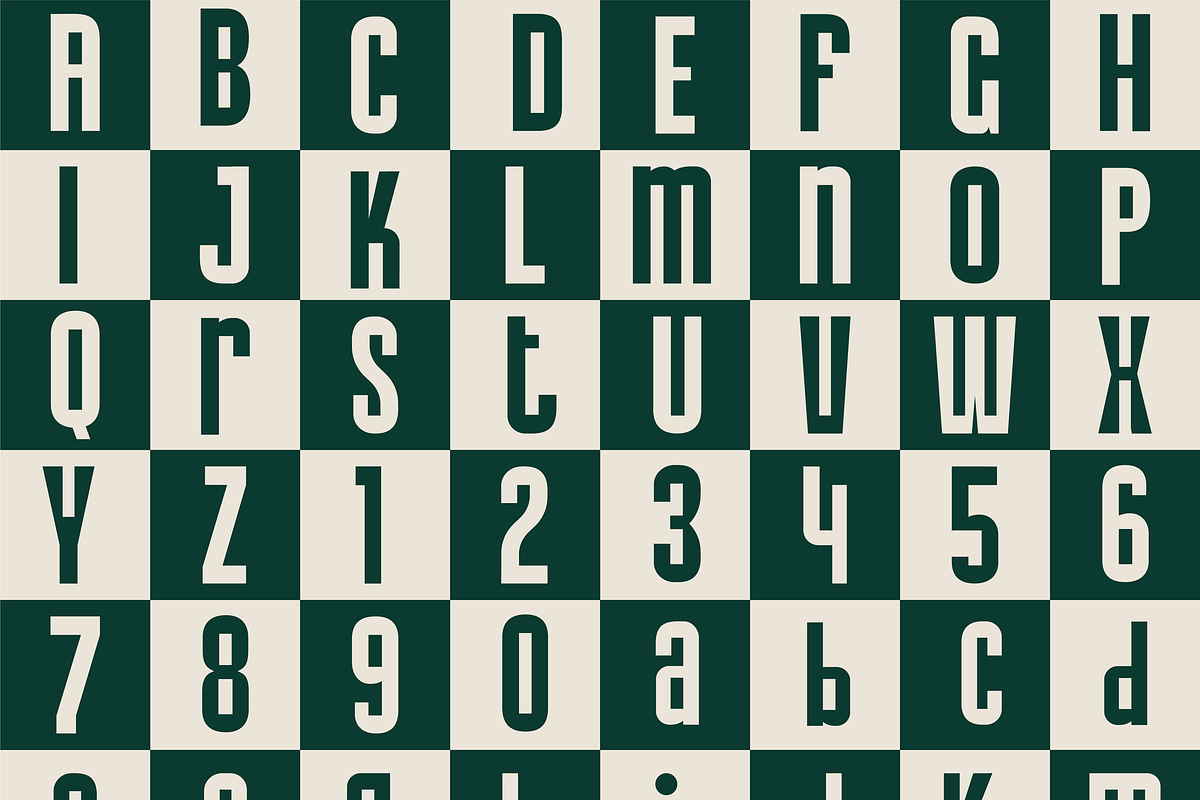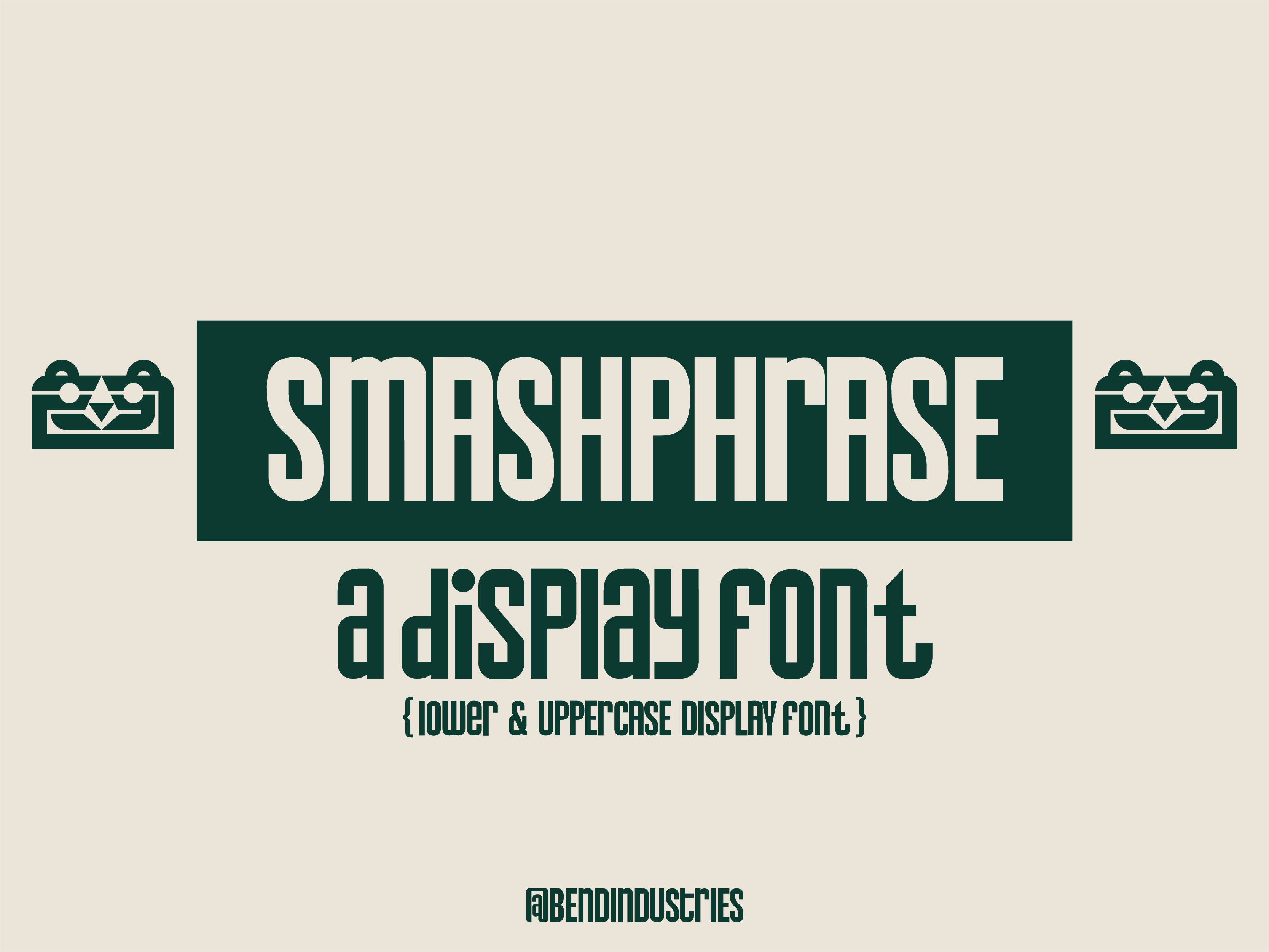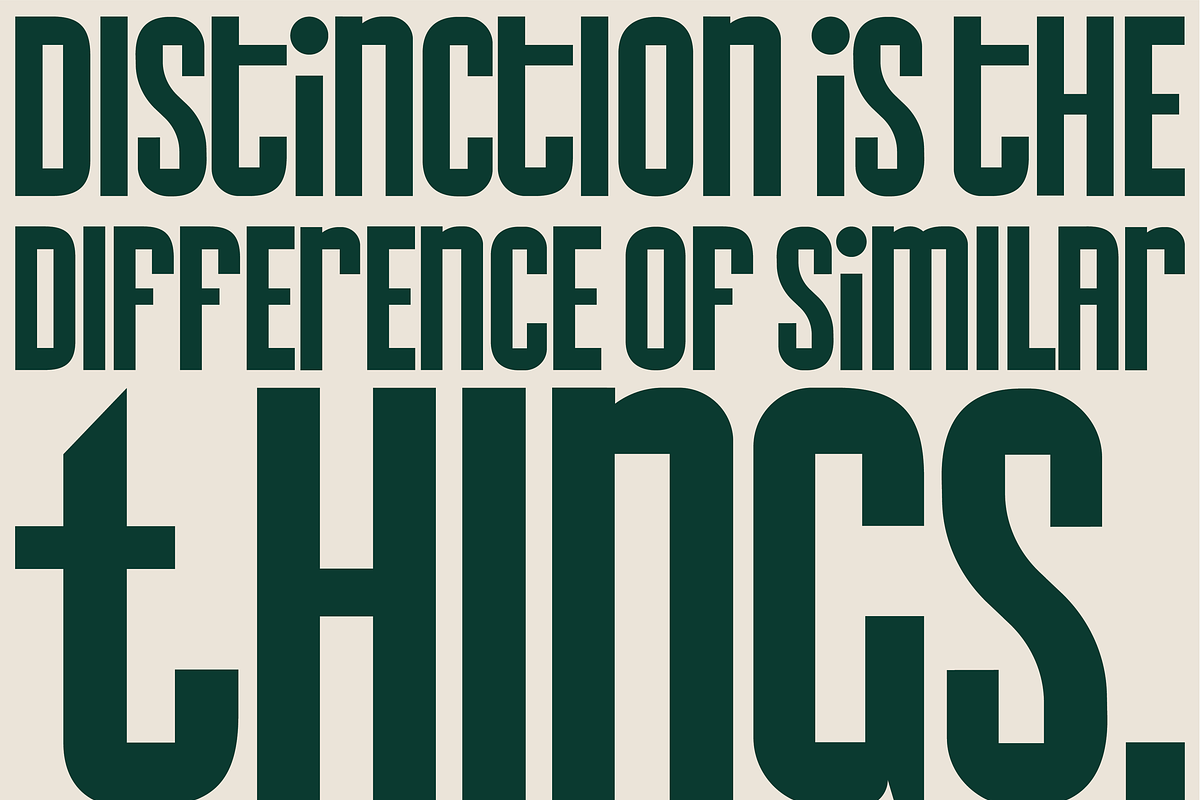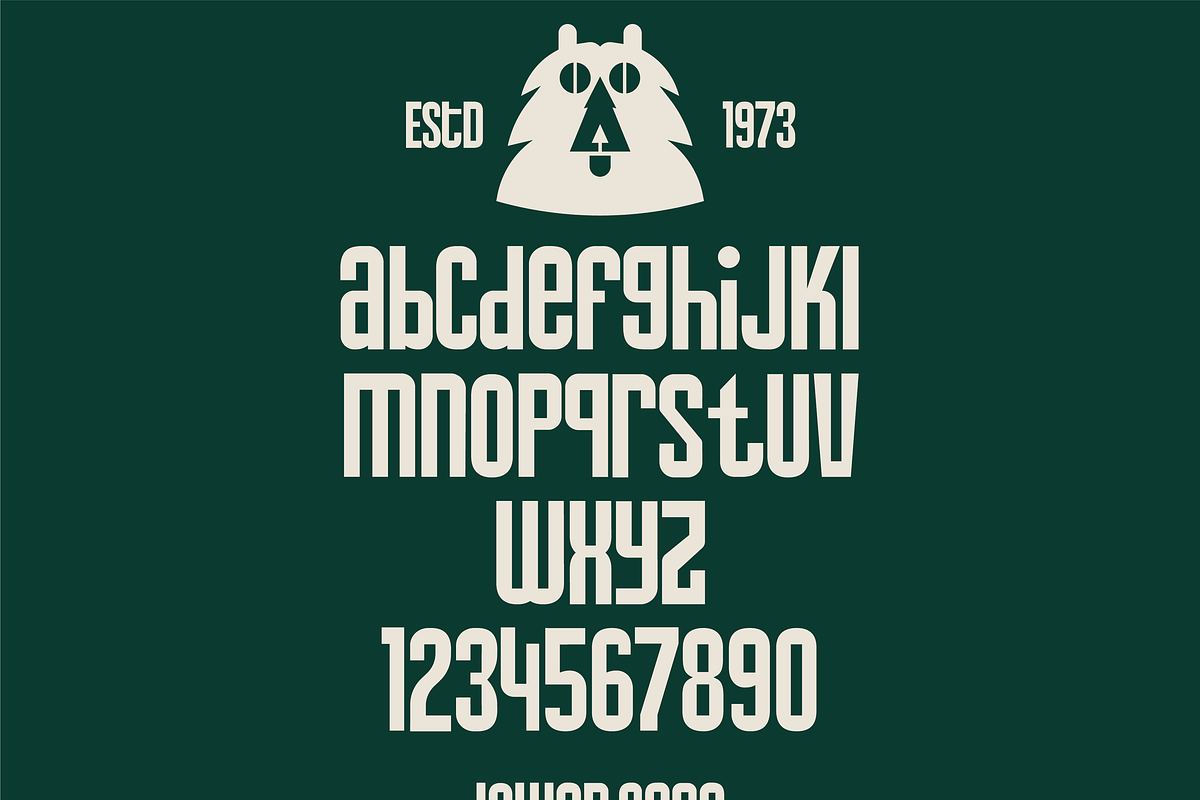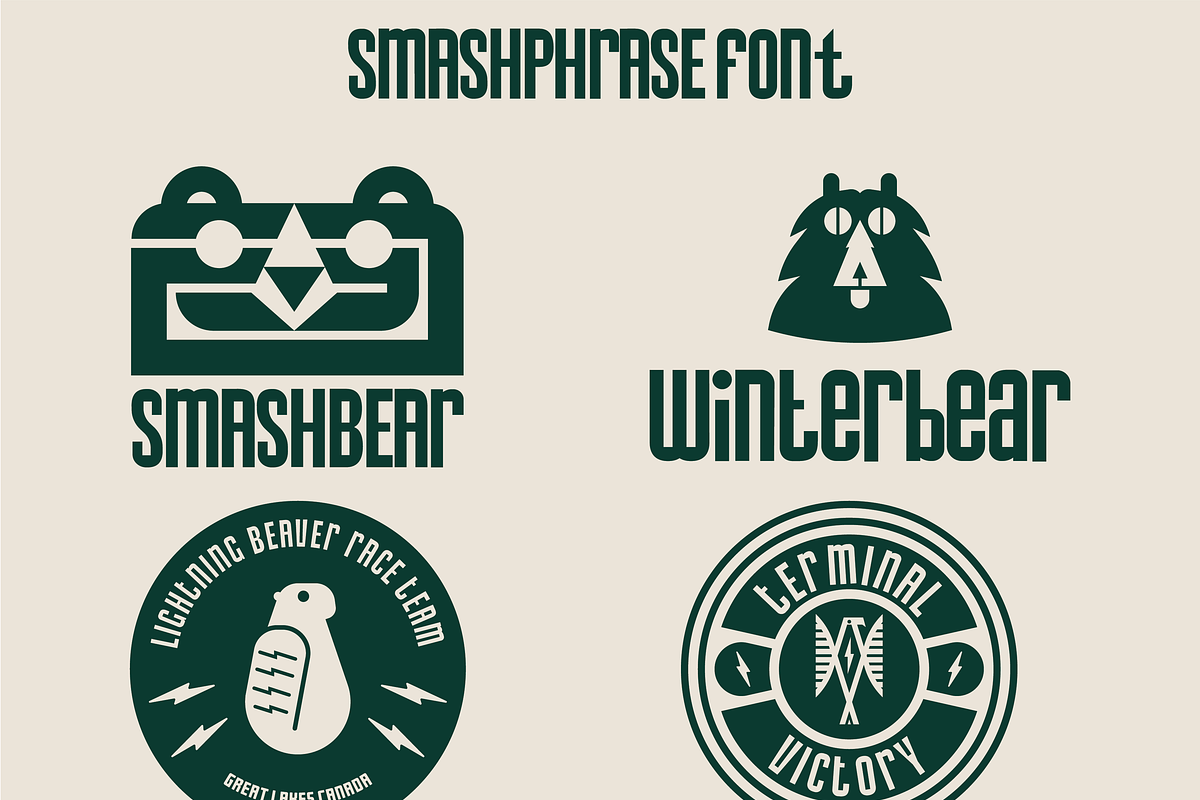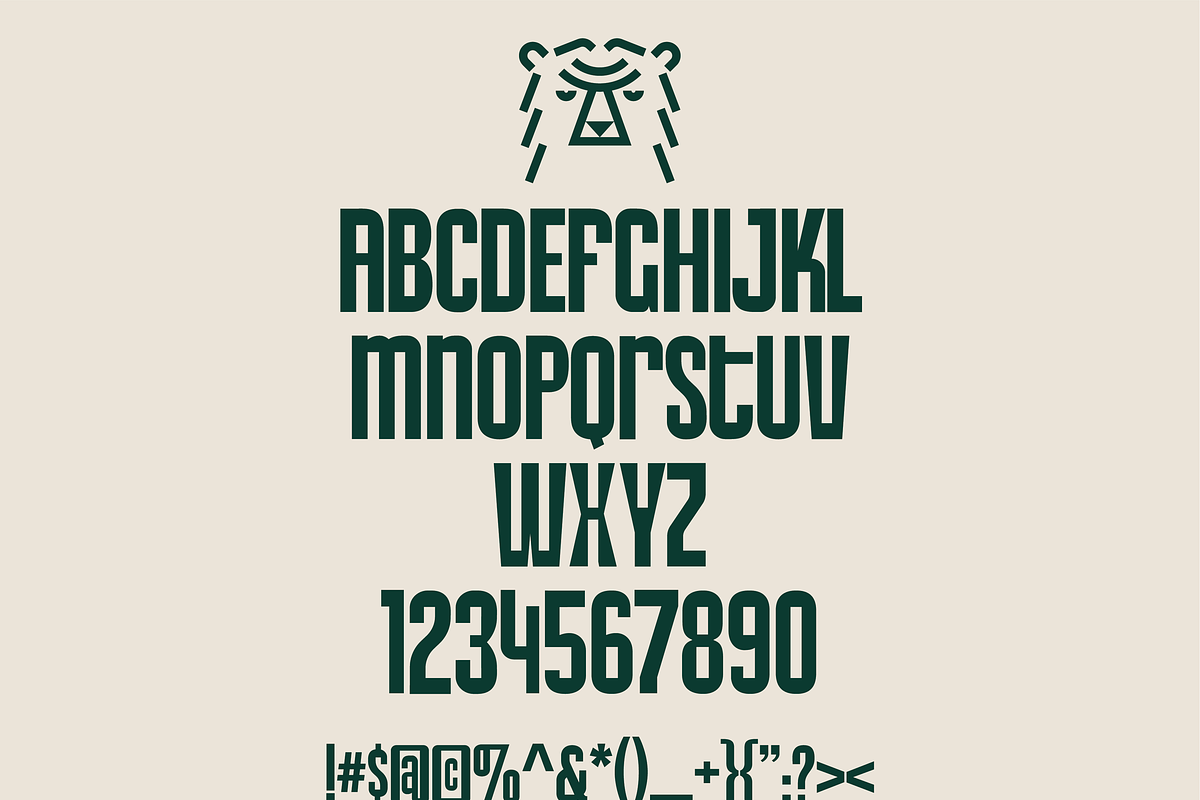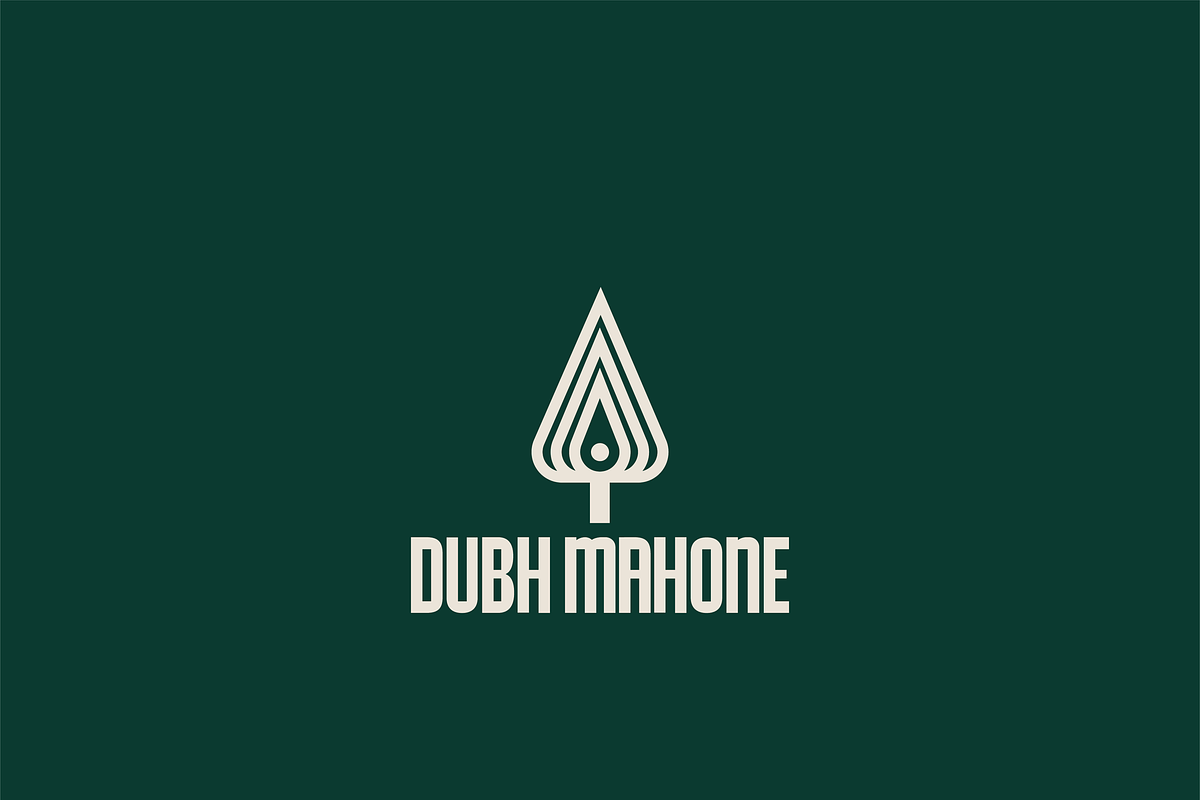
SmashPhrase | Unicase Display Font
SmashPhrase is inspired by the atomic era and mid-century design. I wanted strong contrasting lines mixed with soft curves. This design is perfect for strong type options for everything from logo design to gameplay. I built this for a separate project where I wanted a type to work on its own or together with a mark. I think a type like this is perfect and works well by itself or as part of an overall design project and I hope it helps your future projects as well. Enjoy!